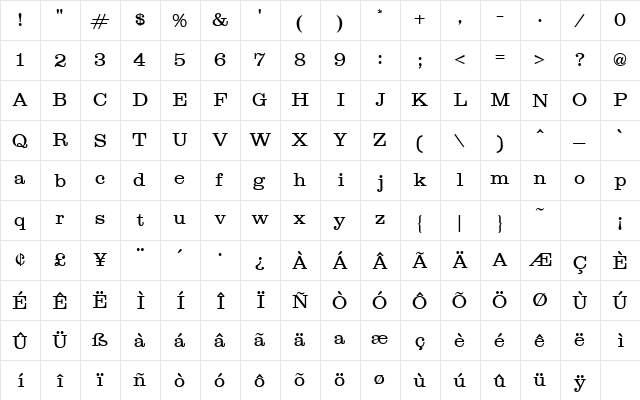
Cleartone Regular
Design Context for Cleartone Typeface
Cleartone offers clean, dependable letterforms without strong stylistic allegiance, making it a practical choice for designers who need flexibility.
Pro Tip: Pair Cleartone with a font of contrasting weight or personality to build a more expressive typographic hierarchy.